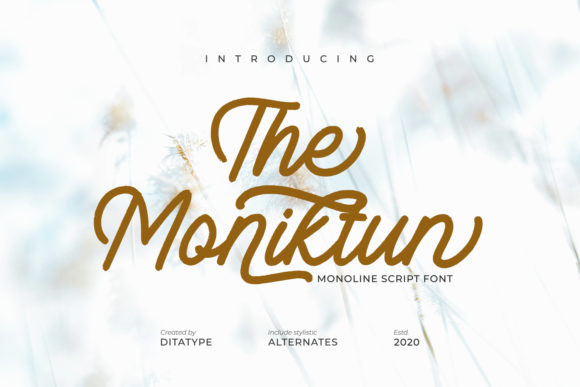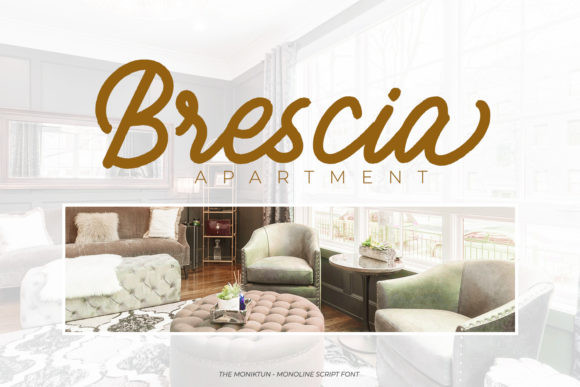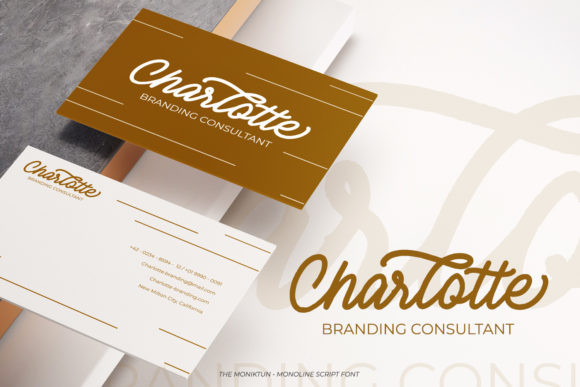
The Moniktun Font
The Moniktun FontThe Moniktun is a classy script font. It is perfect for any professional project branding that need a modern and attractive typeface.